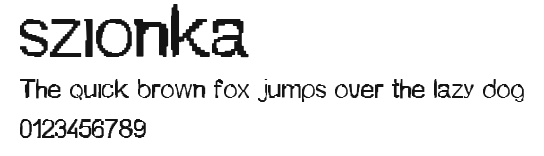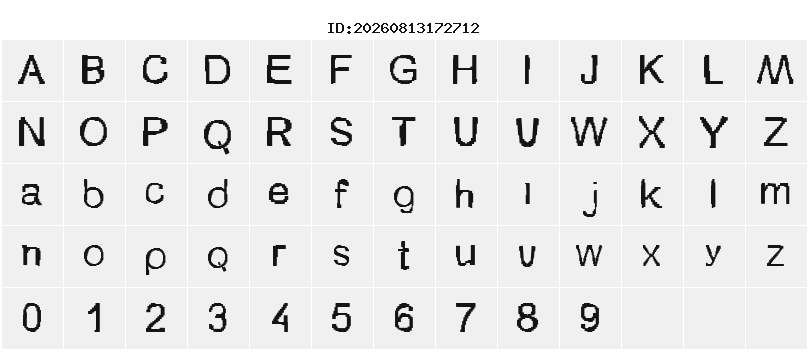
• Font Name: szionka
• Full Font Name: szionka
• Designer: hertoy
About szionka.ttf
szionka.ttf is a modern, elegant sans-serif font designed for ultimate readability and visual harmony. Perfect for branding, headlines, web design, and print materials.